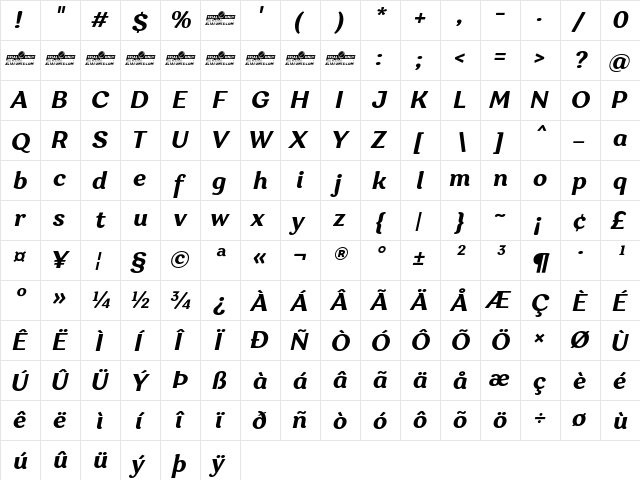
Garbata Trial Bold Italic
| Foundry | Zetafonts |
| Designer | Francesco Canovaro, Debora Manetti |
Design Context for Garbata Trial Typeface
Garbata Trial is a composed and adaptable typeface that performs quietly and consistently across a wide range of design contexts. The slanted form adds forward momentum and visual energy. The heavy weight commands attention and anchors typographic hierarchies.